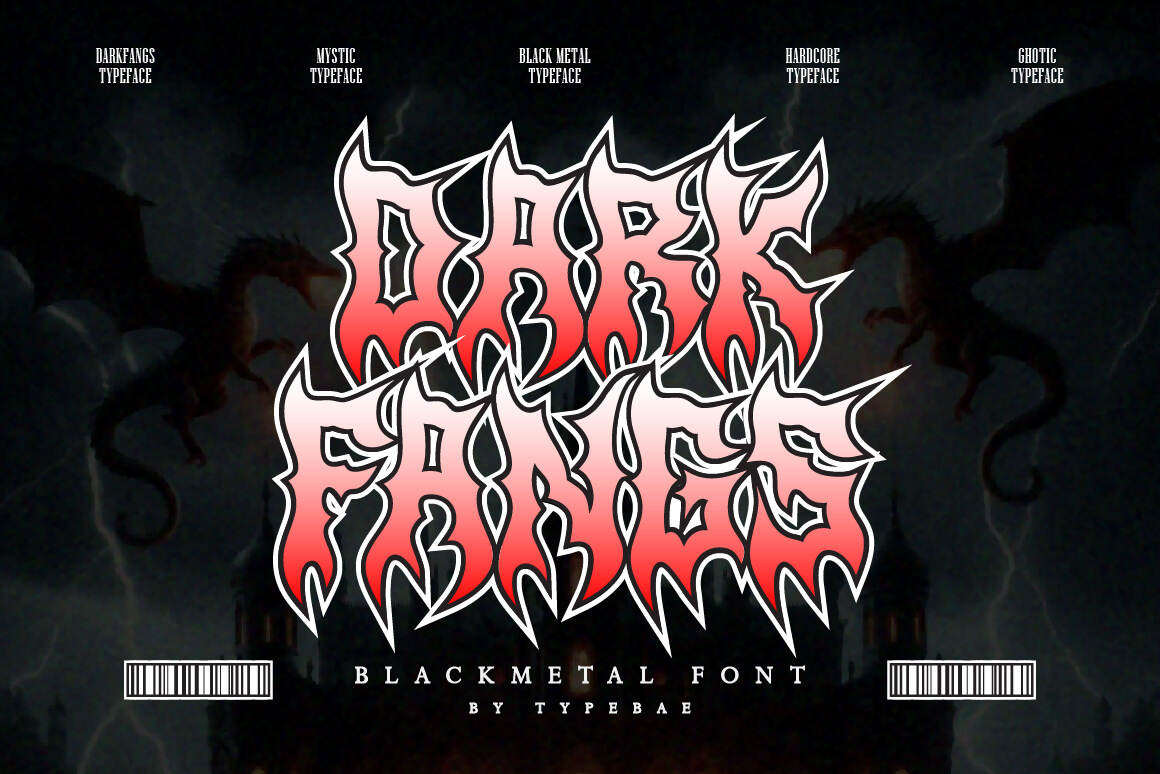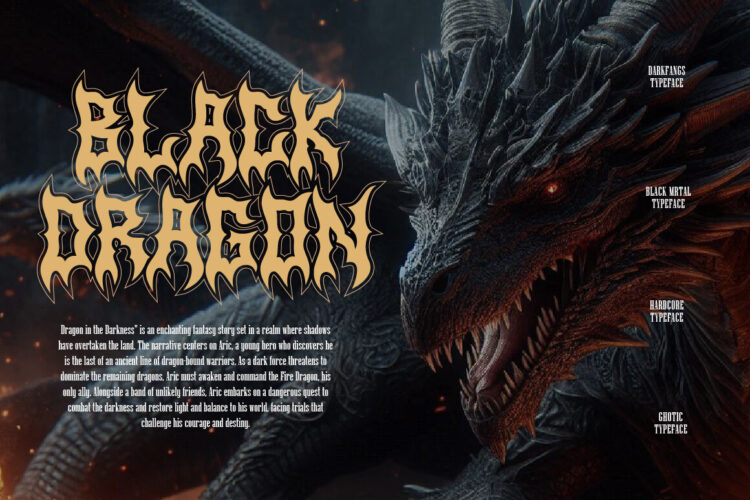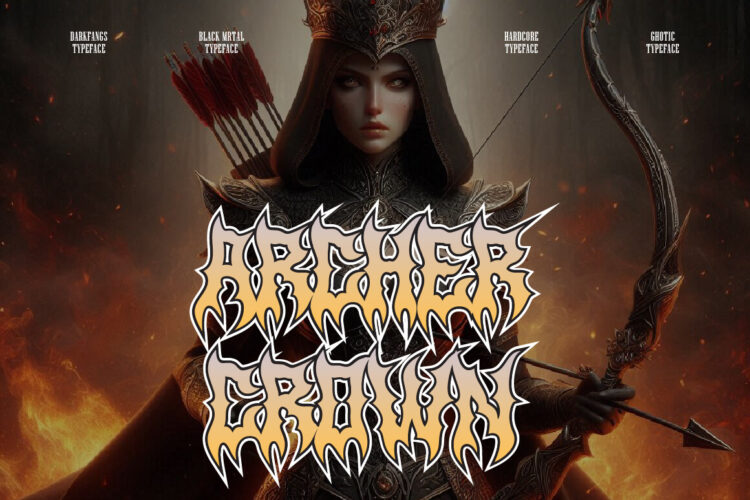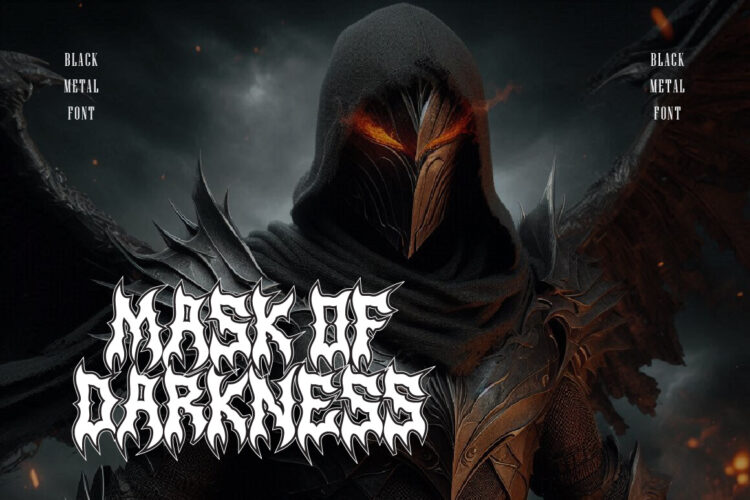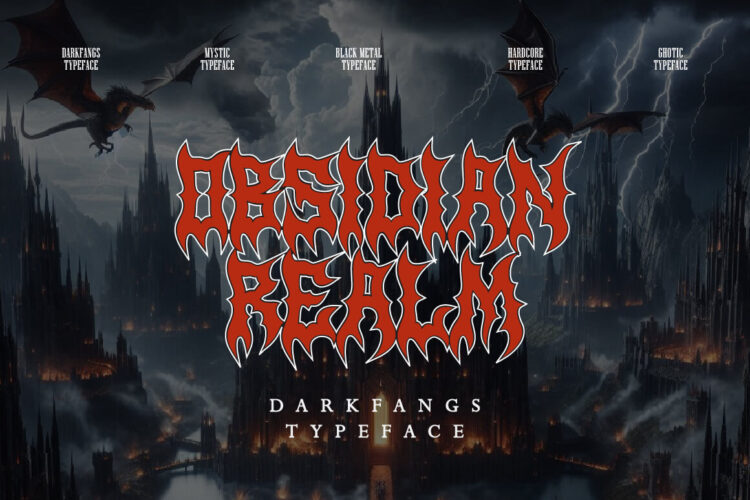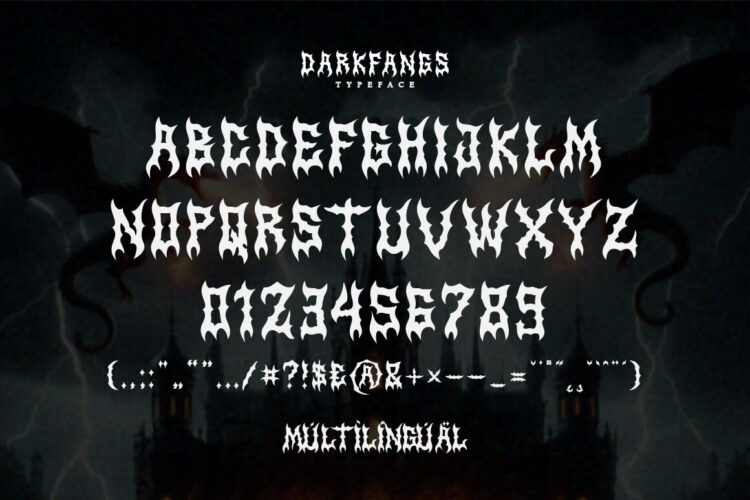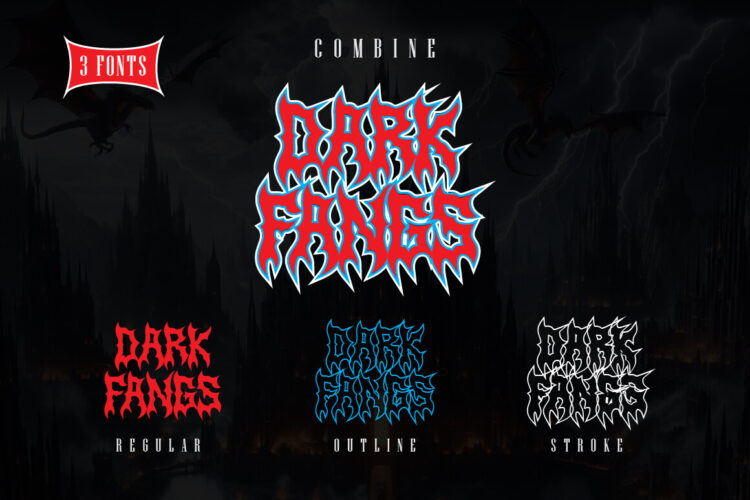
Darkfangs-Regular
Darkfangs-Outline
Darkfangs-Stroke
Darkfangs is a gothic typeface that captures the dark intensity of black metal. With its sharp, modern design, it’s perfect for creating striking logos, band merchandise, and horror film posters, adding a bold, edgy flair to your projects.
• Regular, Outline & Stroke
• All Caps
• Punctuation
• Multilingual
Darkfangs – Blackmetal Font